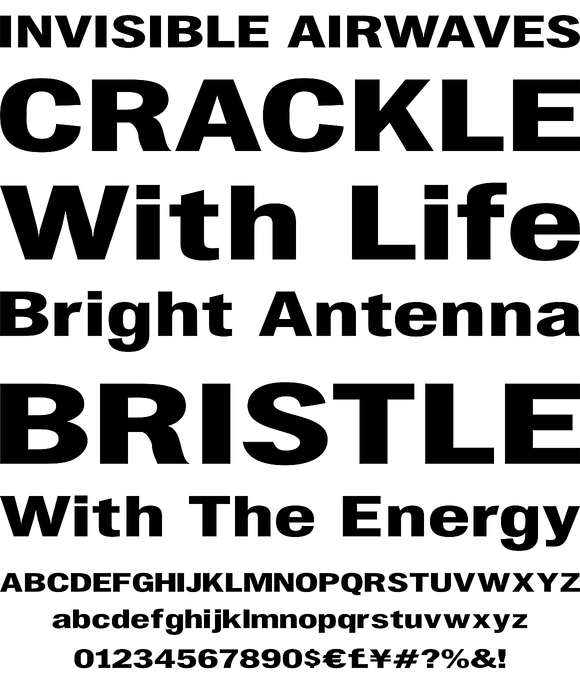
Chubbet Distended
Chubbet (pr. Chub-bay) Distended is the extended version of Chubbet . The Chubbet weight starts off plumper than plump, then it expands inward until there is a minimal amount of positive space.